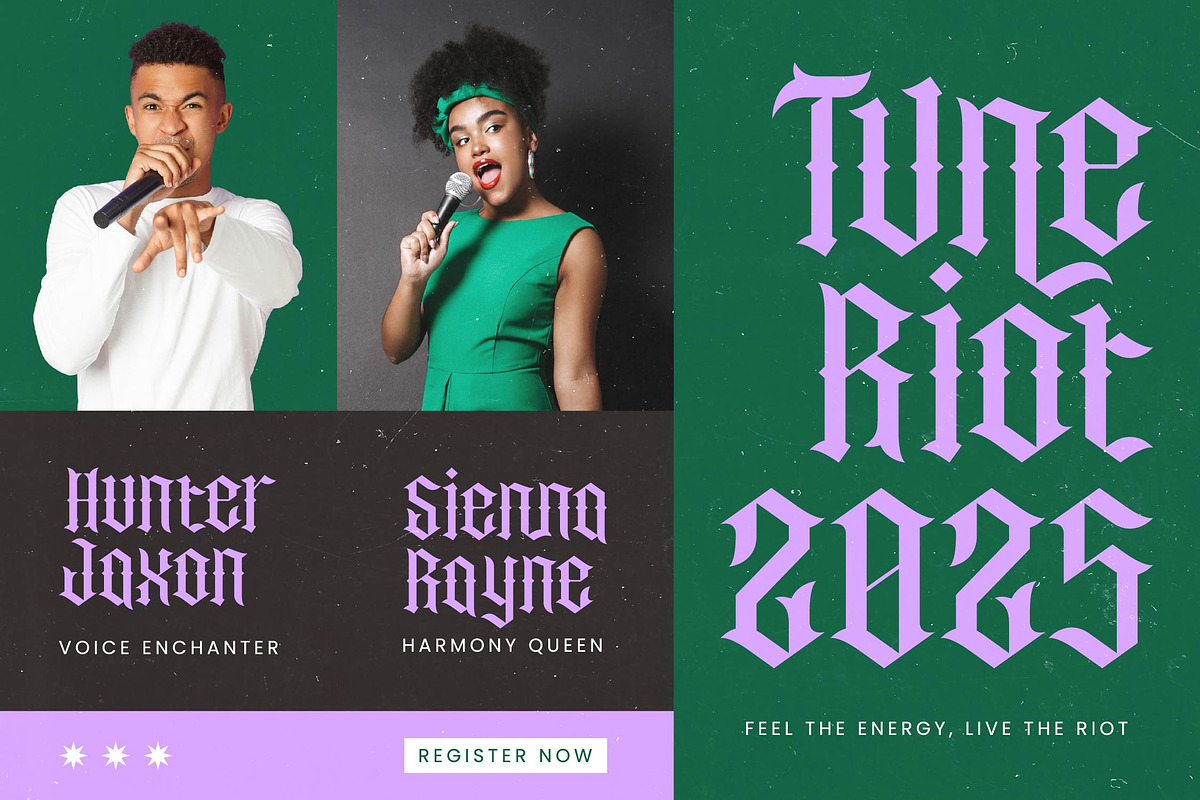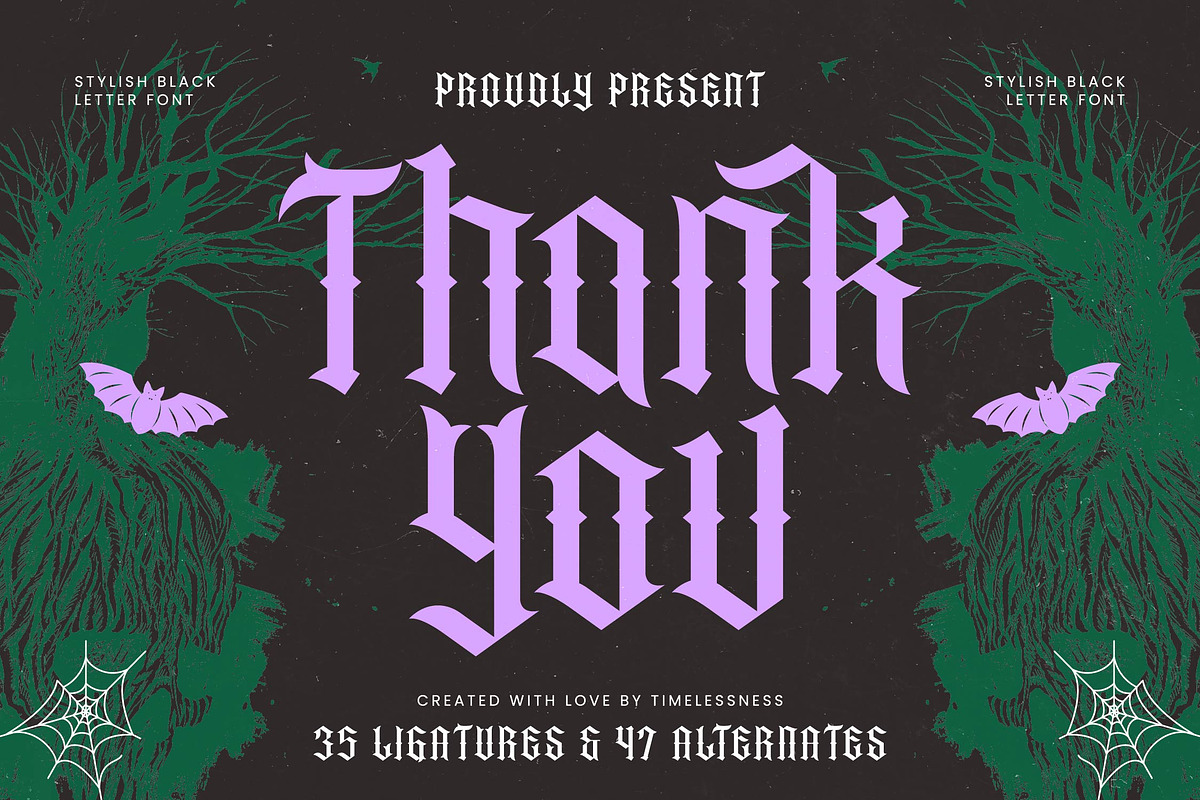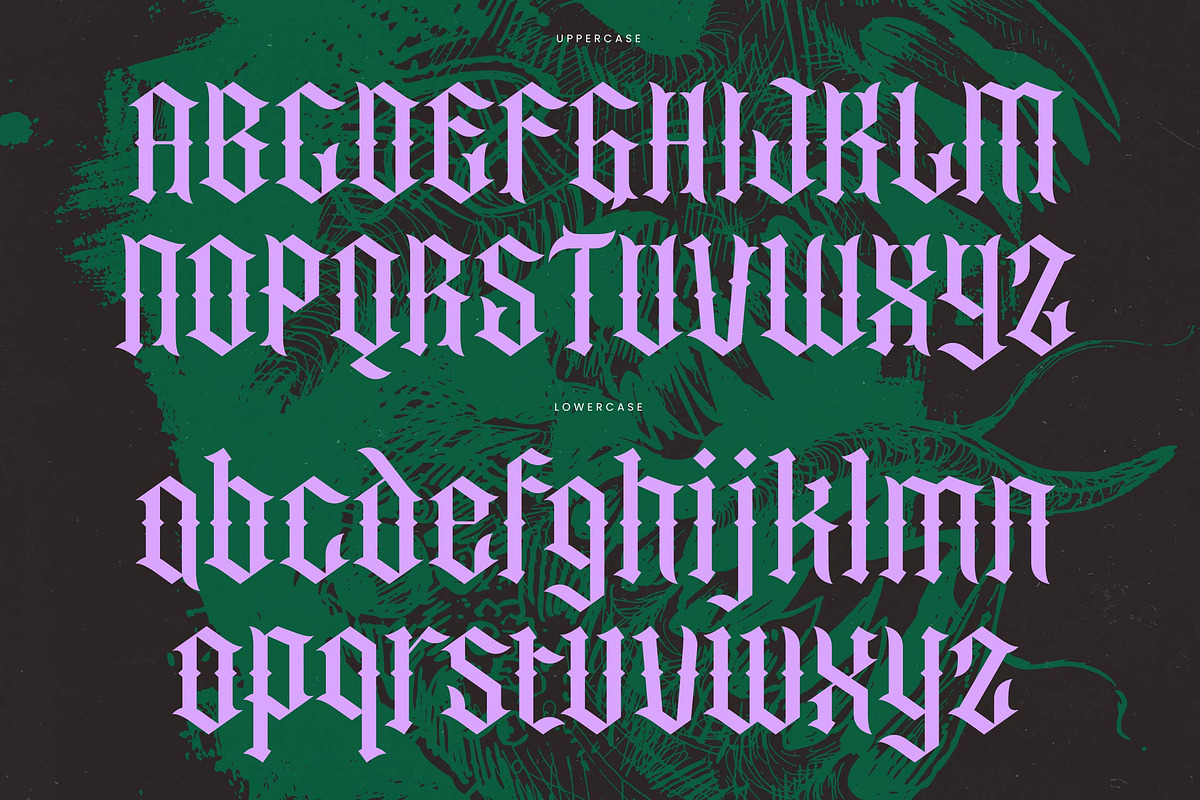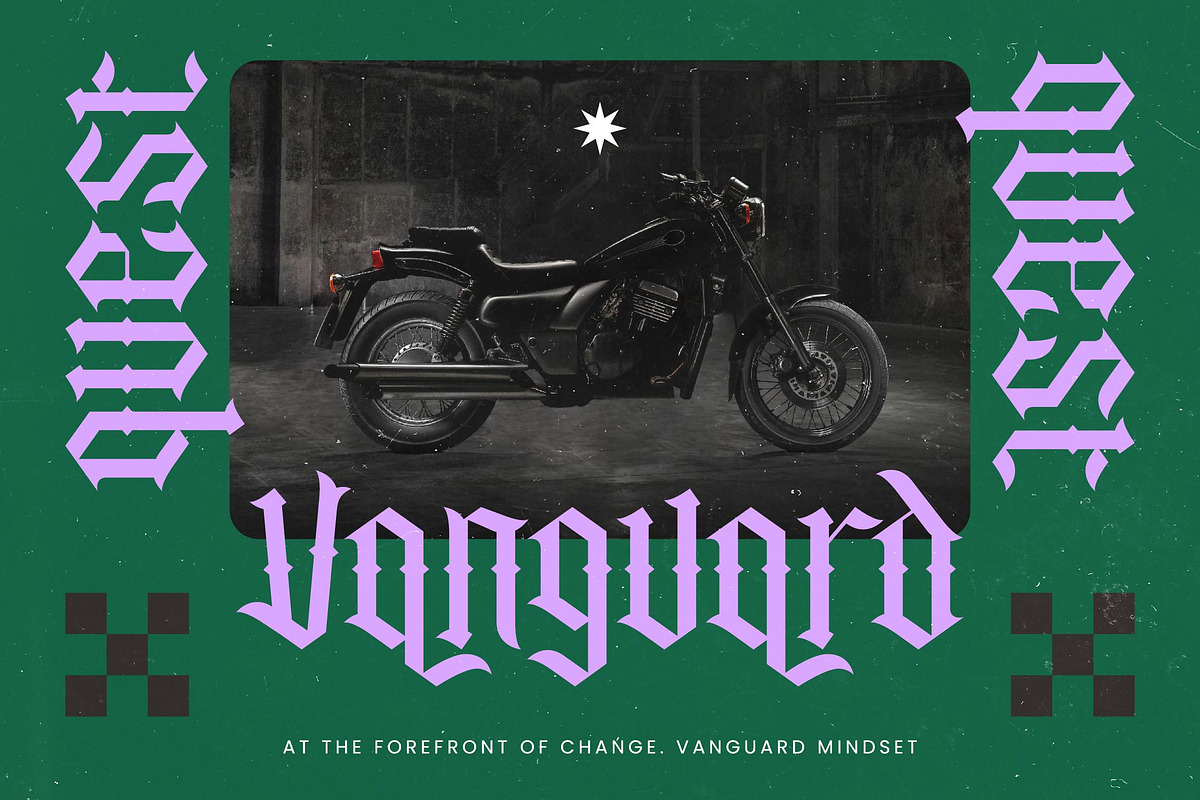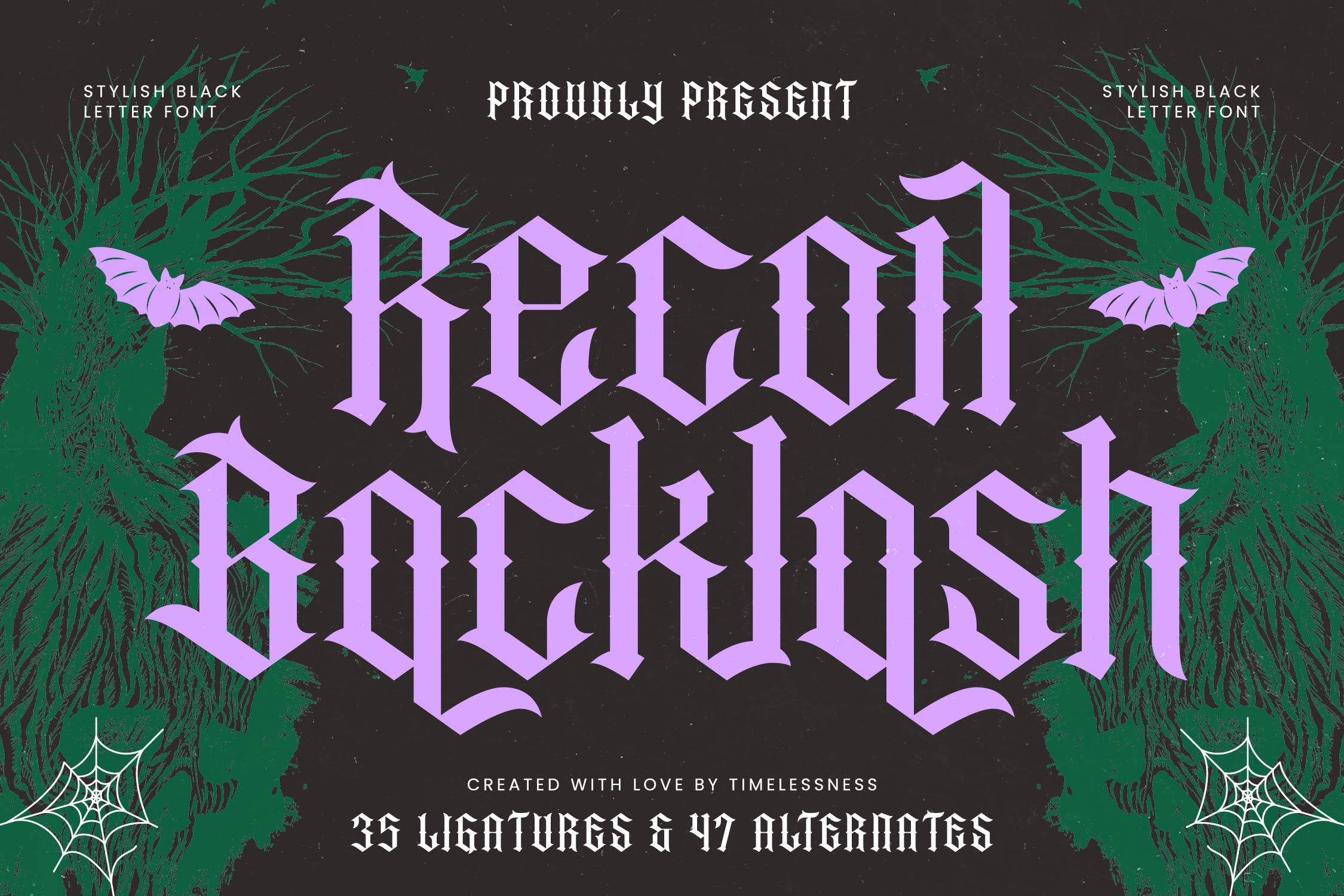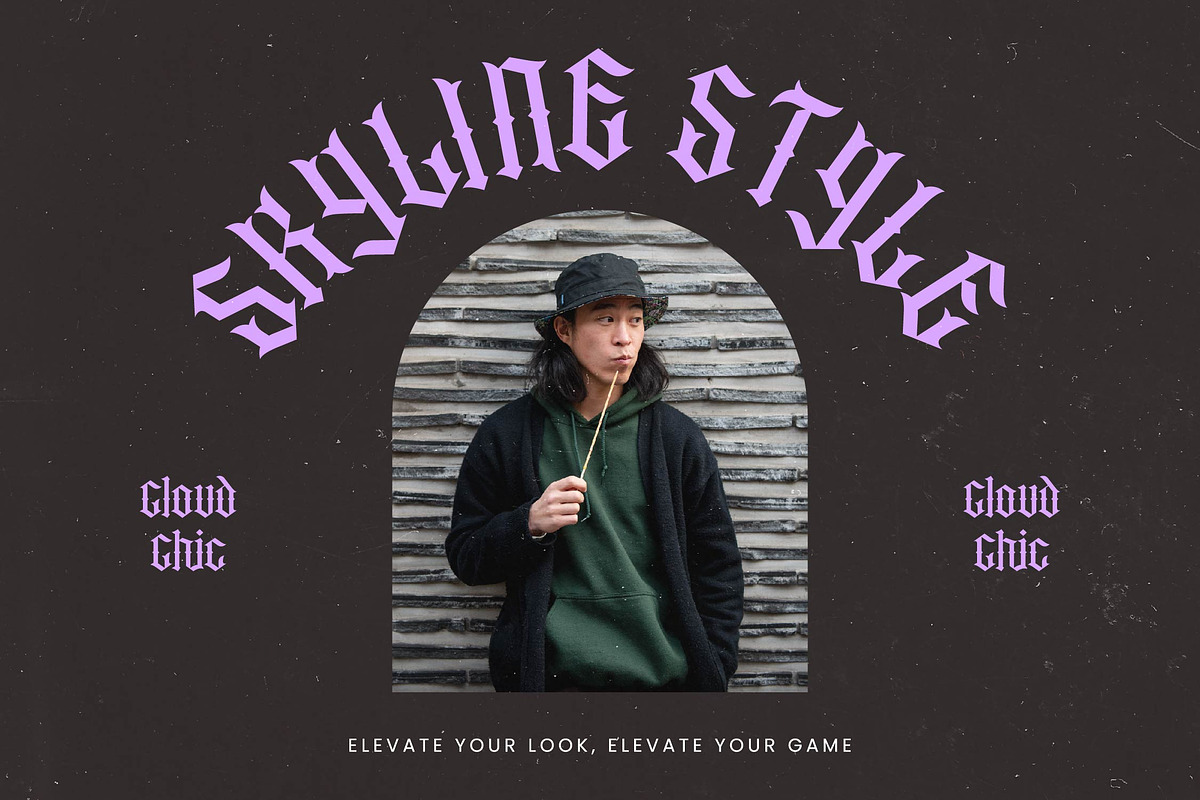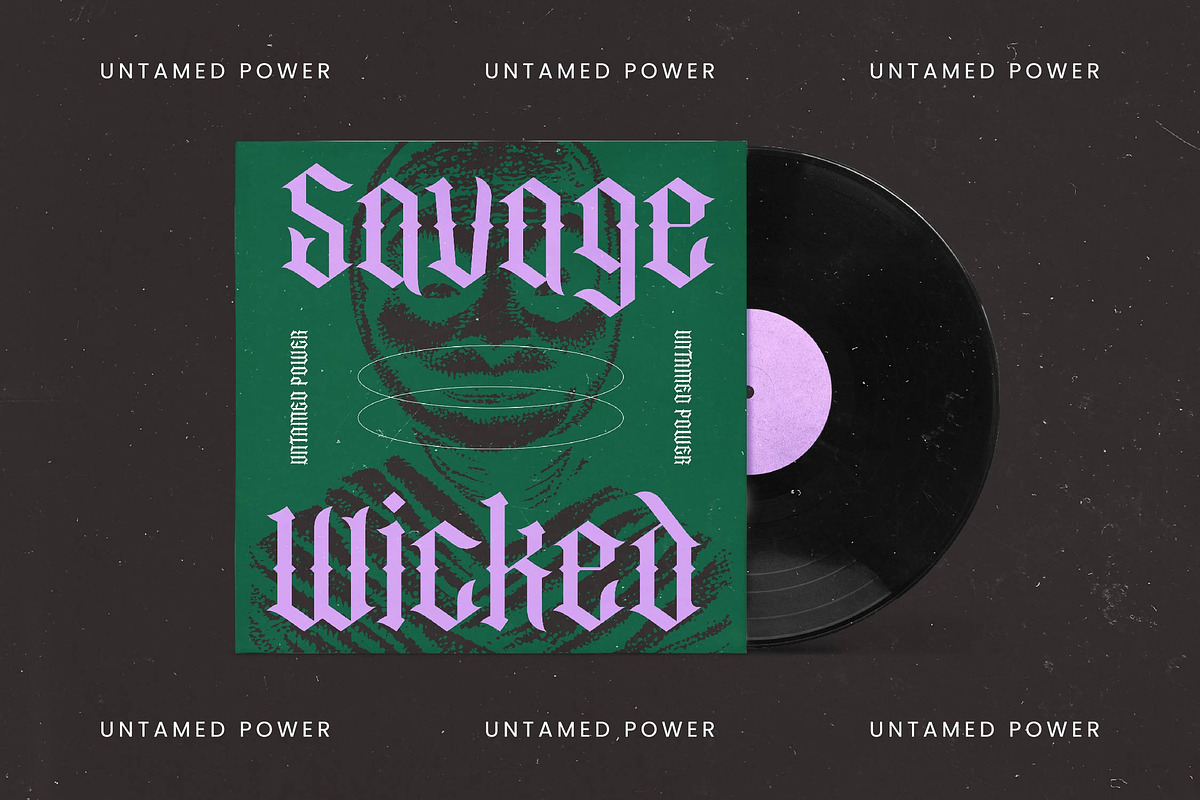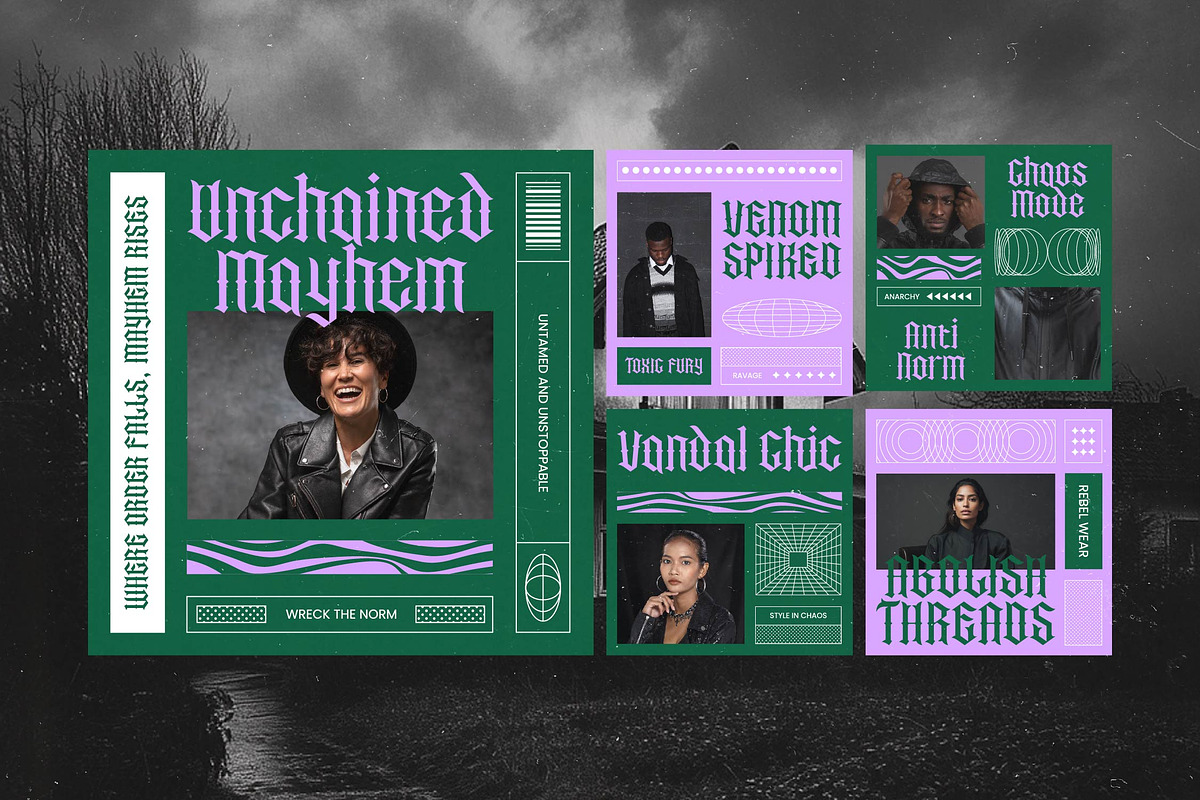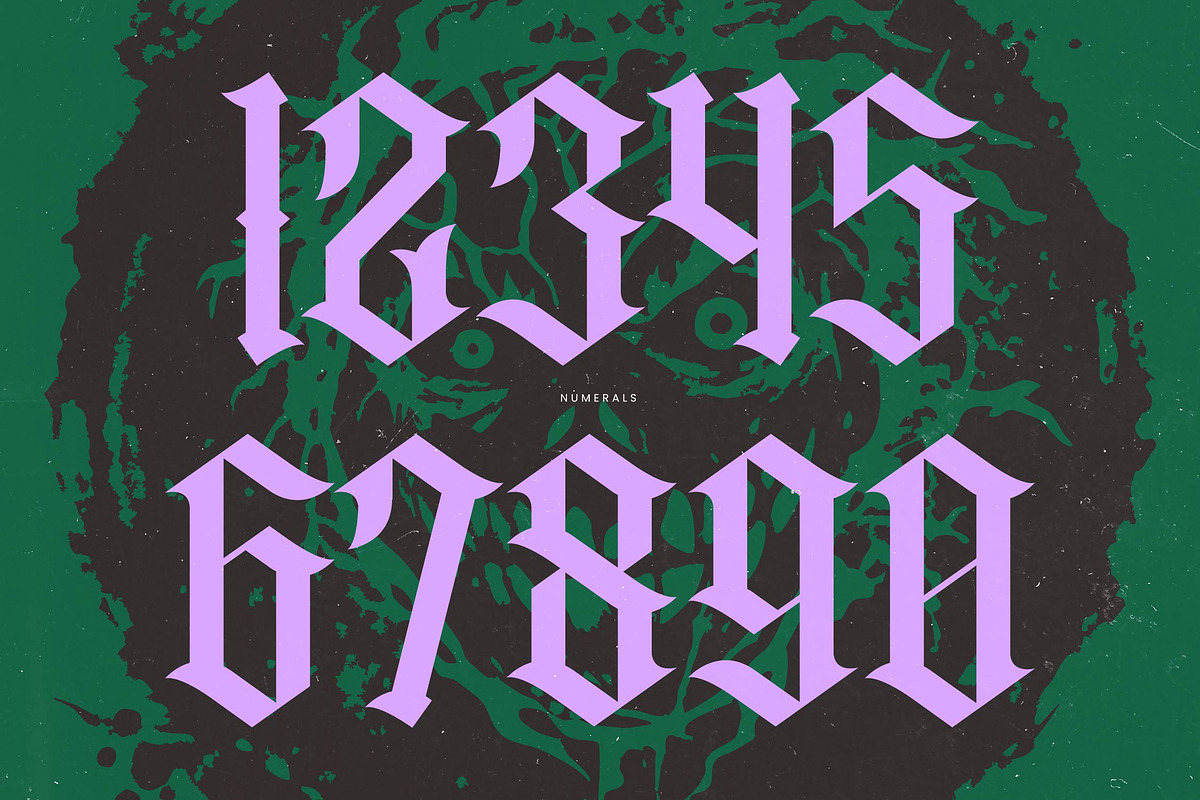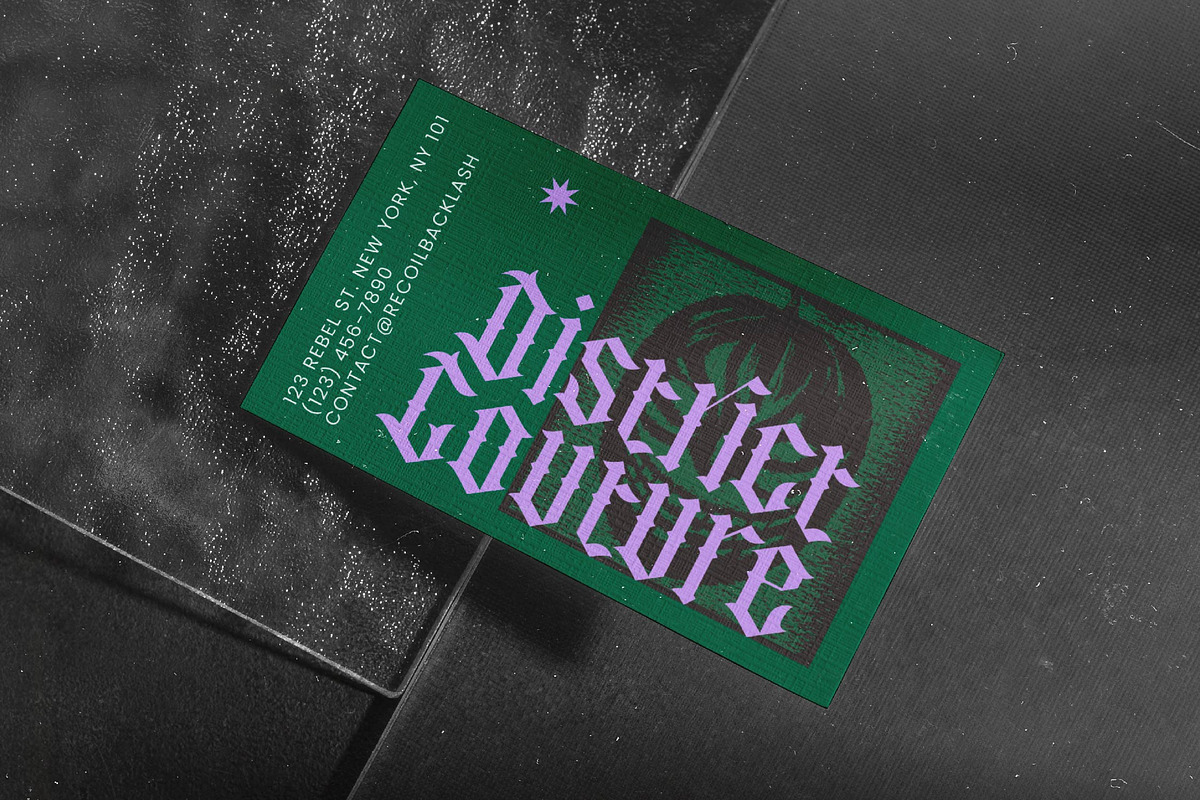
Recoil Backlash Blackletter Font
Step into the shadows of design with Recoil Backlash, a masterfully crafted blackletter typeface that brings an aggressive edge to your creative toolkit. This font is designed for those who want their message to strike with the force of a dark revelation.
Inspired by the sharp, interlocking shapes of medieval fraktur and the eerie atmosphere of supernatural folklore, this font channels a sense of ancient mystery. Its visual language speaks of moonlit forests, heavy metal aesthetics, and the timeless allure of gothic architecture.
Functioning as a modern serif display for the unconventional creator, it provides a unique luxury typography experience for alternative markets. The high-contrast serif construction behaves like an editorial font with an attitude, ensuring your project leaves a lasting branding impact on every viewer.
Aligning with the modern serif trend of heavy, characterful display types, this font stands at the forefront of contemporary editorial display fonts. Its sharp terminals and character-driven typography make it a standout choice for designers looking to move beyond the ordinary and into the extraordinary.
Engineered for high-stakes logo design and disruptive branding, this typeface is equally at home in extreme sports or high-end editorial layouts. It excels in dark-themed packaging, alternative wedding stationery, and avant-garde fashion branding that requires a touch of the macabre.
This professional package is equipped with 35 ligatures and 47 alternates to provide endless customization for your headlines. Beyond its aesthetic flourishes like swashes, it features full multilingual support and a wide array of international characters for global design compatibility.